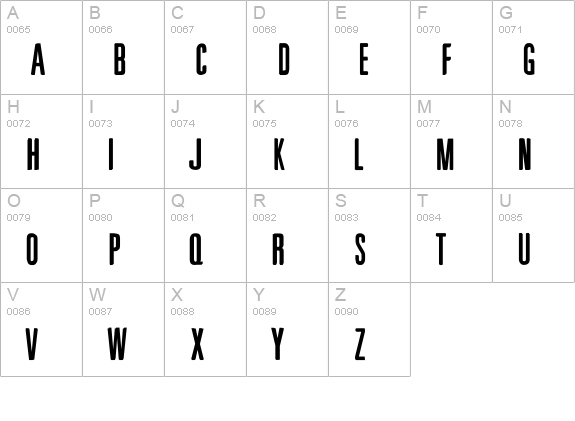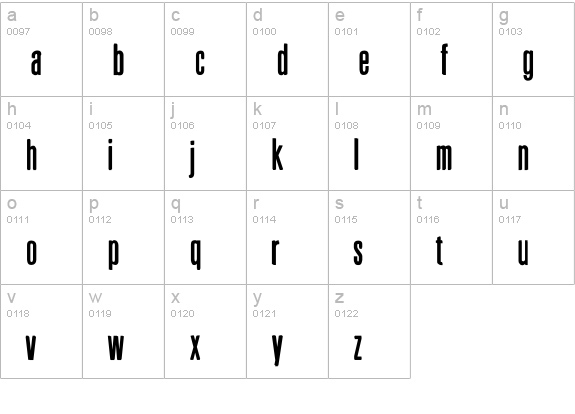
Fury-Solid Font Details
Introducing Fury-Solid font, a bold and powerful typeface designed to make a statement. With its strong, clean lines and modern aesthetic, Fury-Solid is perfect for headlines, logos, posters, and more. This versatile font exudes energy and strength, adding a dynamic touch to any design project. What's even better is that Fury-Solid is available for free download at FontsMarket.com. Whether you're a designer looking to add a bold element to your work or a hobbyist exploring new fonts, Fury-Solid is a fantastic choice. Don't miss out on this amazing opportunity to enhance your designs with this eye-catching font. Download Fury-Solid today and let your creativity soar!